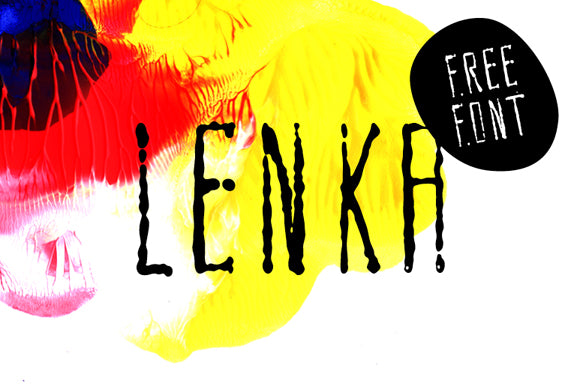
Introducing you to the absolutely beautiful free lenka brush typeface. Download this typeface from the original source of Free Design Resources. Amaze your fellow designers and create stunning designs with this cool font.